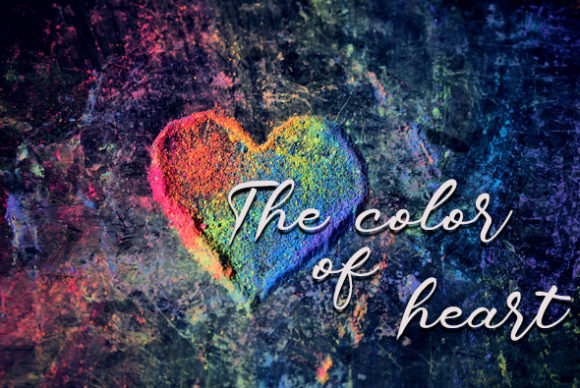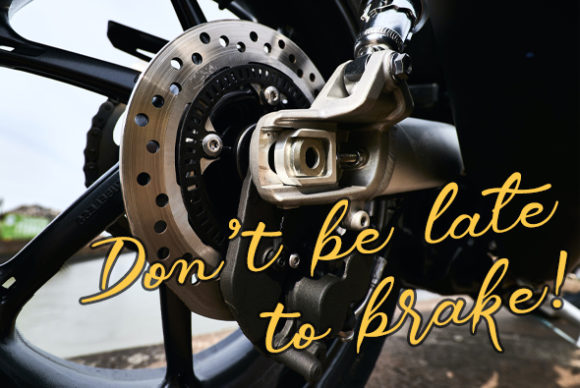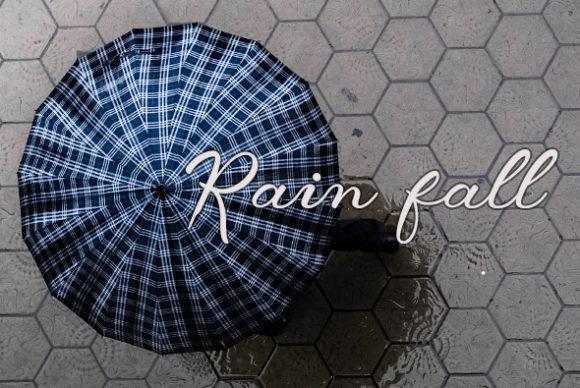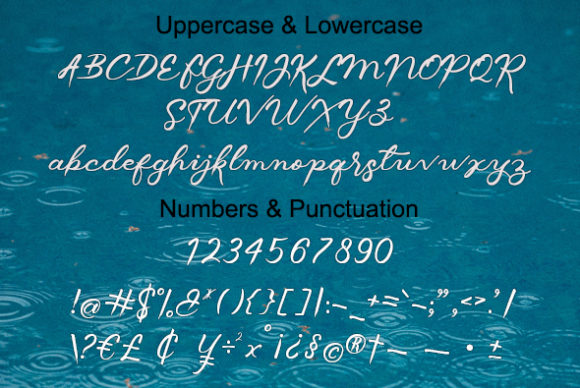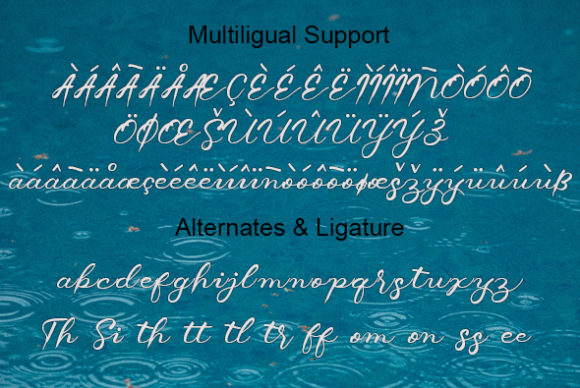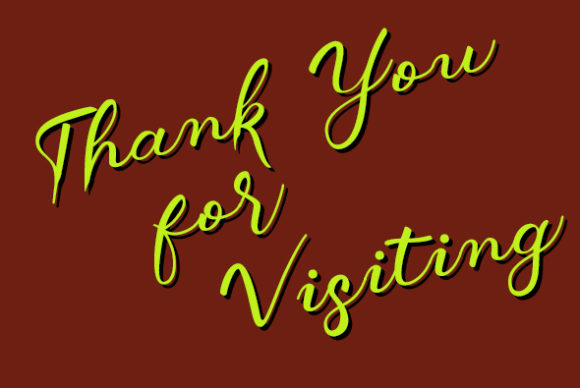
Discover the Charm of Barussa Font: Elevate Your Designs with its Unique Handwritten Style
Are you tired of using the same old fonts in your designs? Look no further than Barussa Font, a unique and interesting handwritten font that is sure to capture the attention of your audience. With its incredibly stylish look and versatility, Barussa Font is the perfect addition to any design project. In this article, we’ll dive into the world of Barussa Font and explore its features, benefits, and uses, helping you to unlock its full potential and take your designs to the next level.
What is Barussa Font?
Barussa Font is a one-of-a-kind handwritten font that boasts a distinctive and captivating style. Its unique charm lies in its ability to convey a sense of personality and warmth, making it an excellent choice for designers who want to add a touch of humanity to their work. Whether you’re creating a logo, brochure, or social media post, Barussa Font is sure to make your design stand out from the crowd.
The Versatility of Barussa Font
One of the standout features of Barussa Font is its incredible versatility. This font is designed to fit a wide pool of designs, making it an excellent addition to any designer’s toolkit. From elegant and sophisticated to playful and whimsical, Barussa Font can adapt to any style or theme, ensuring that your design looks cohesive and visually appealing.
Benefits of Using Barussa Font
So, why should you choose Barussa Font for your next design project? Here are just a few benefits of using this amazing font:
- Unique Style: Barussa Font offers a fresh and unique perspective on handwritten fonts, setting it apart from more traditional fonts.
- Versatility: As mentioned earlier, Barussa Font is incredibly versatile, making it suitable for a wide range of designs and applications.
- Ease of Use: Barussa Font is easy to read and understand, ensuring that your message is communicated effectively to your audience.
- Customization: With Barussa Font, you can experiment with different colors, sizes, and styles to create a truly bespoke design.
Uses of Barussa Font
So, how can you use Barussa Font in your designs? The possibilities are endless! Here are a few ideas to get you started:
- Logos and Branding: Create a memorable and impactful logo with Barussa Font, perfect for businesses, products, or services.
- Print Materials: Use Barussa Font in brochures, flyers, posters, and other print materials to add a touch of personality and style.
- Digital Media: Barussa Font is perfect for social media posts, blog headers, and other digital content, helping you to stand out in a crowded online space.
- Crafting and DIY: If you’re a crafter or DIY enthusiast, Barussa Font can add a personal touch to your project, making it more special and unique.
Tips for Using Barussa Font
To get the most out of Barussa Font, here are a few tips to keep in mind:
- Experiment with Colors: Try pairing Barussa Font with different colors to create a unique and eye-catching design.
- Play with Sizes: Experiment with different font sizes to create visual interest and hierarchy in your design.
- Add Texture and Patterns: Consider adding texture or patterns to your design to give it an extra layer of depth and interest.
In conclusion, Barussa Font is a unique and interesting handwritten font that is sure to elevate your designs to the next level. With its incredibly stylish look and versatility, Barussa Font is the perfect addition to any design project. Whether you’re a designer, crafter, or DIY enthusiast, Barussa Font is sure to inspire and delight. So why not give it a try and see the difference it can make in your designs?